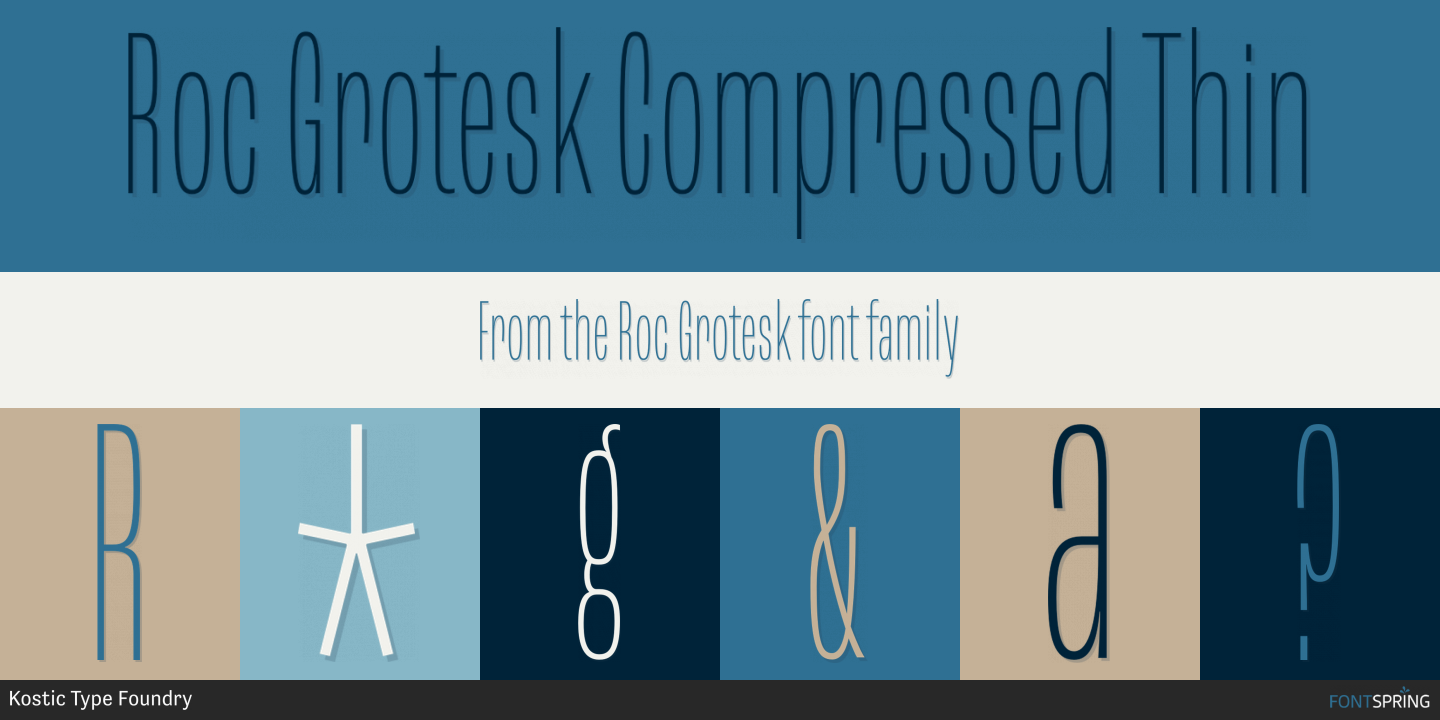
Roc Grotesk Font Download . Web roc is a sans serif grotesk inspired by american wood types from the end of the 19th century. Web roc grotesk variable is a sans serif typeface with 1 style, designed by nikola kostić and available from adobe fonts.
Web roc grotesk variable is a sans serif typeface with 1 style, designed by nikola kostić and available from adobe fonts. Web roc grotesk is a sans serif grotesk inspired by american wood types from the end of the 19th century. Web roc grotesk is a modern sans serif font family that was influenced by the american wooden types designed in the last quarter.
Web roc is a sans serif grotesk inspired by american wood types from the end of the 19th century. Web roc grotesk is a sans serif grotesk inspired by american wood types from the end of the 19th century. Web roc grotesk sans serif font is a convenient and modern grotesk sans serif features low contrast details to cover. Web roc grotesk is a sans serif grotesk inspired by american wood types from the end of the 19th century.
Roc Grotesk Font Download - Web roc is a sans serif grotesk inspired by american wood types from the end of the 19th century. Web roc grotesk sans serif font is a convenient and modern grotesk sans serif features low contrast details to cover. Web the roc grotesk font family comprises nine weights (from thin to heavy) and five widths (compressed, condensed, normal, wide,. It.
Roc Grotesk Font Download - Web roc grotesk variable is a sans serif typeface with 1 style, designed by nikola kostić and available from adobe fonts. It contains 45 fonts in nine. Web roc grotesk sans serif font is a convenient and modern grotesk sans serif features low contrast details to cover. It has nine weights in five widths, including wide. Web roc grotesk is.
Roc Grotesk Font Download - Web the roc grotesk font family comprises nine weights (from thin to heavy) and five widths (compressed, condensed, normal, wide,. Web roc grotesk sans serif font is a convenient and modern grotesk sans serif features low contrast details to cover. It contains 45 fonts in nine. Web roc grotesk is a modern sans serif font family that was influenced by.
Roc Grotesk Font Download - Web roc grotesk is a sans serif grotesk inspired by american wood types from the end of the 19th century. Web roc grotesk is a sans serif grotesk inspired by american wood types from the end of the 19th century. It has nine weights in five widths, including wide. Web roc grotesk is a modern sans serif font family that.
Roc Grotesk Font Download - Web the roc grotesk font family comprises nine weights (from thin to heavy) and five widths (compressed, condensed, normal, wide,. Web roc grotesk is a modern sans serif font family that was influenced by the american wooden types designed in the last quarter. It contains 45 fonts in nine. It has nine weights in five widths, including wide. Web roc.
Roc Grotesk Font Download - Web roc is a sans serif grotesk inspired by american wood types from the end of the 19th century. It contains 45 fonts in nine. Web roc grotesk variable is a sans serif typeface with 1 style, designed by nikola kostić and available from adobe fonts. It has nine weights in five widths, including wide. Web roc grotesk is a.
Roc Grotesk Font Download - Web roc is a sans serif grotesk inspired by american wood types from the end of the 19th century. Web roc grotesk sans serif font is a convenient and modern grotesk sans serif features low contrast details to cover. Web roc grotesk is a sans serif grotesk inspired by american wood types from the end of the 19th century. With.
Roc Grotesk Font Download - Web roc is a sans serif grotesk inspired by american wood types from the end of the 19th century. Web roc grotesk is a versatile and modern font family with 45 styles, designed by nikola and zoran kostić. Web roc grotesk is a sans serif grotesk inspired by american wood types from the end of the 19th century. Web roc.
Roc Grotesk Font Download - Web roc grotesk is a sans serif grotesk inspired by american wood types from the end of the 19th century. It has nine weights in five widths, including wide. With nine weights in five widths, this family contains 45 fonts. Web roc grotesk is a sans serif grotesk inspired by american wood types from the end of the 19th century..
Roc Grotesk Font Download - It contains 45 fonts in nine. Web roc grotesk is a sans serif grotesk inspired by american wood types from the end of the 19th century. Web roc grotesk is a versatile and modern font family with 45 styles, designed by nikola and zoran kostić. Web the roc grotesk font family comprises nine weights (from thin to heavy) and five.
Roc Grotesk Font Download - Web roc grotesk is a modern sans serif font family that was influenced by the american wooden types designed in the last quarter. Web roc grotesk sans serif font is a convenient and modern grotesk sans serif features low contrast details to cover. Web roc grotesk is a versatile and modern font family with 45 styles, designed by nikola and.
Roc Grotesk Font Download - Web roc is a sans serif grotesk inspired by american wood types from the end of the 19th century. With nine weights in five widths, this family contains 45 fonts. Web roc grotesk is a modern sans serif font family that was influenced by the american wooden types designed in the last quarter. Web the roc grotesk font family comprises.